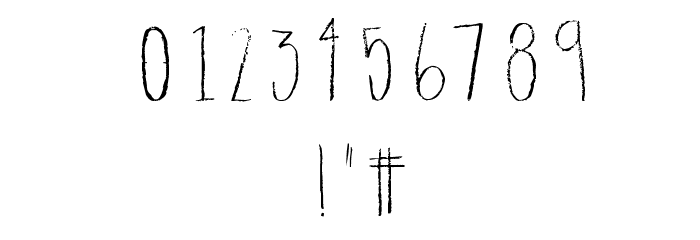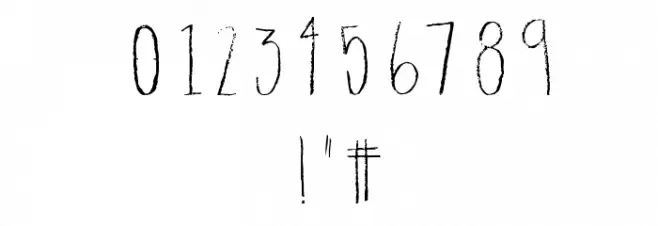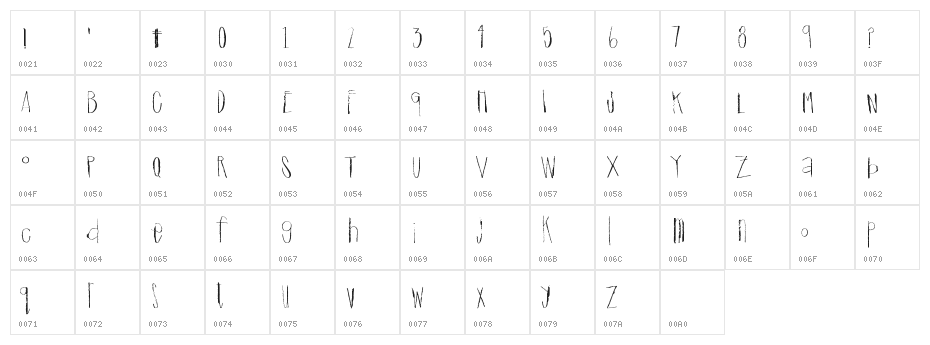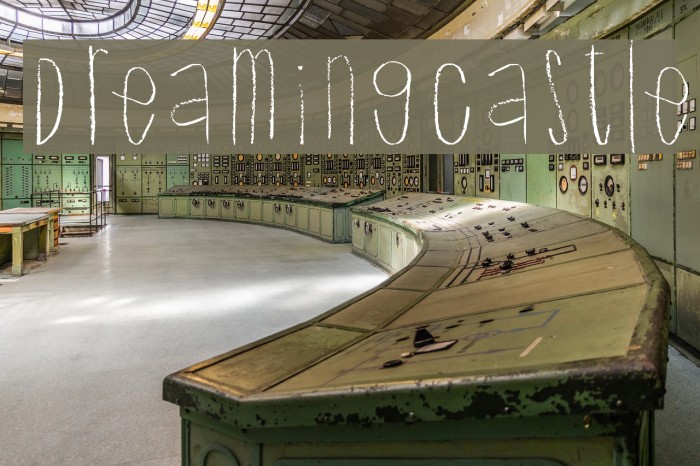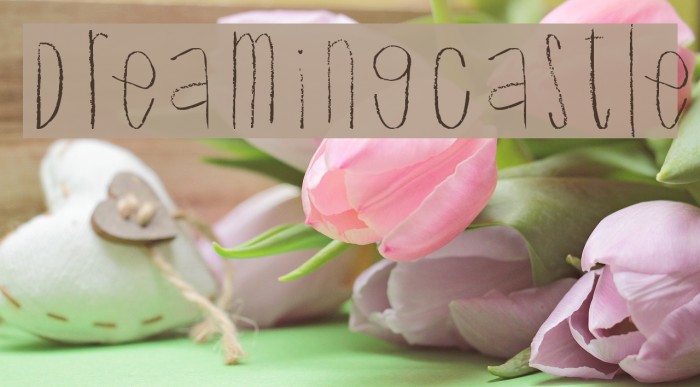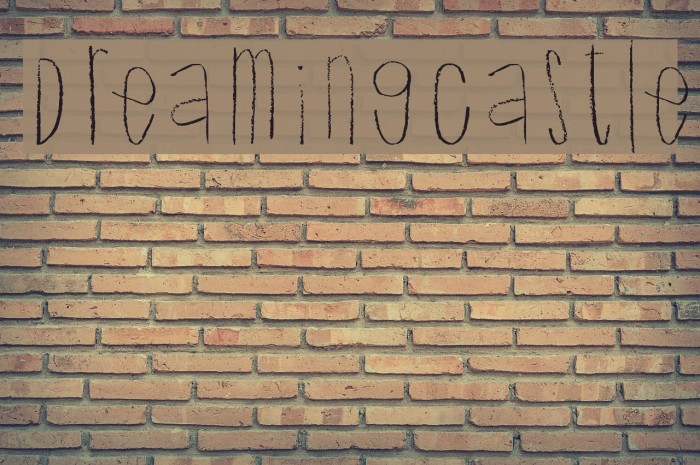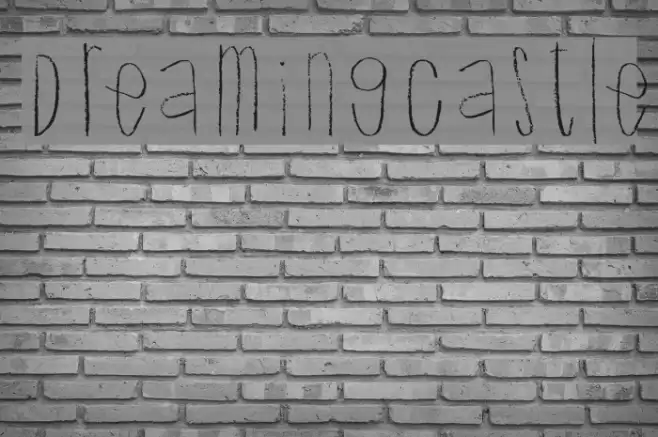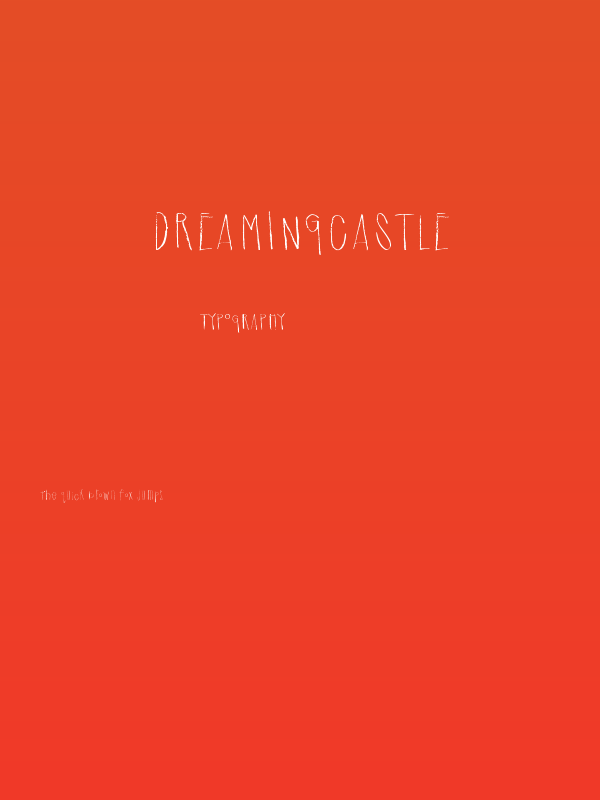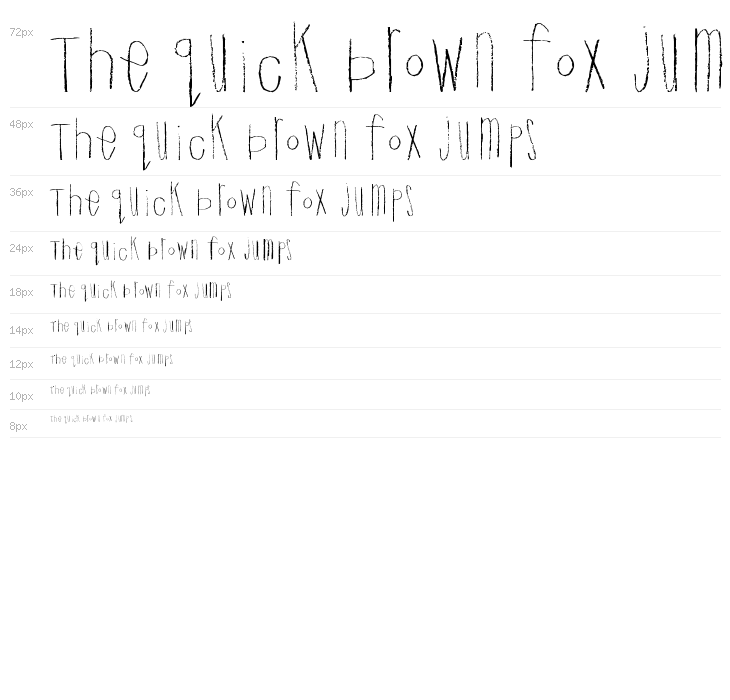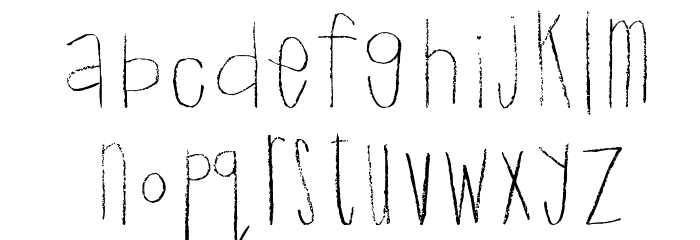
DreamingCastle Font
DreamingCastle Description
This font features a whimsical and hand-drawn style, characterized by its irregular, slightly wavy lines and playful appearance. The letters are tall and narrow, with a sketch-like texture that gives them a unique, artistic feel. The uppercase and lowercase letters maintain a consistent style, with some letters having distinctive loops and curves that add to the font's charm. The numbers and special characters follow the same design principles, ensuring a cohesive look across all elements. This font's organic and imperfect nature makes it stand out, offering a creative and informal vibe.
| Use Case | Headlines, Artistic projects, Informal designs |
| Proposed Projects | Ideal for children's books, creative posters, greeting cards, and artistic branding projects. |